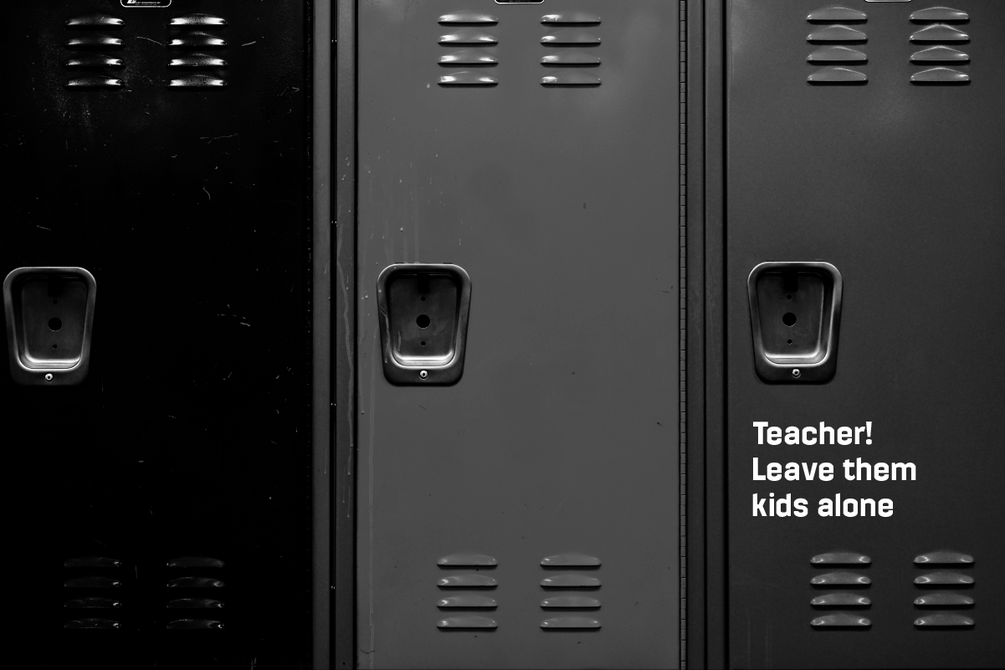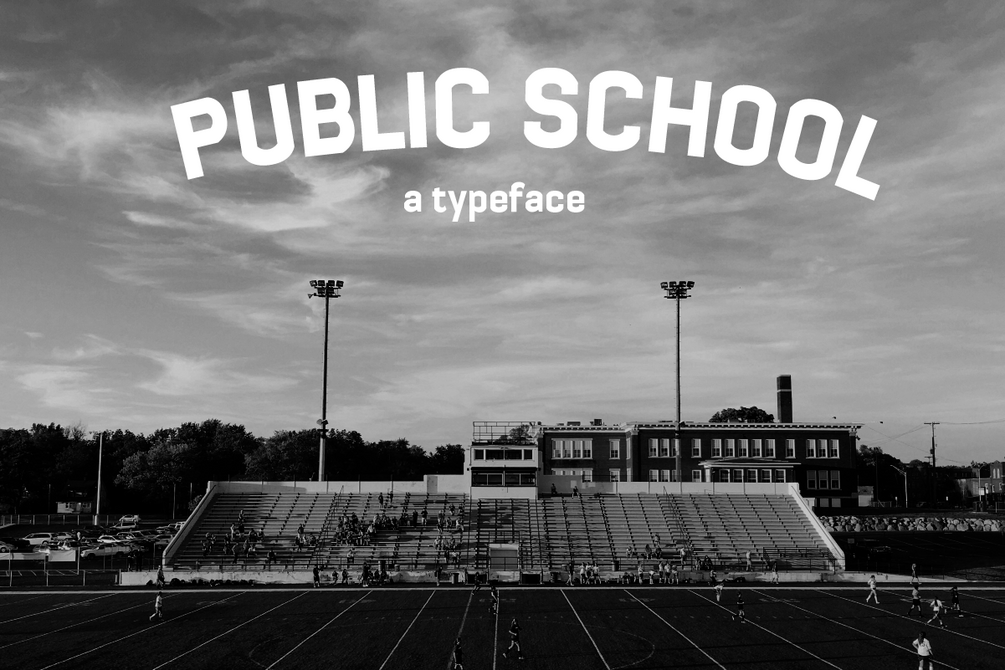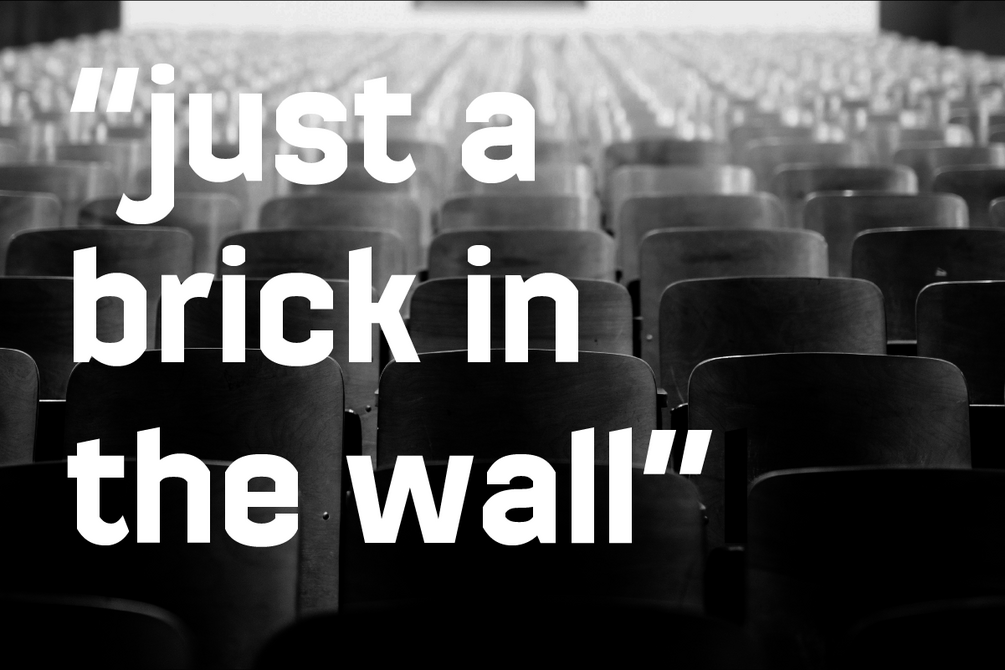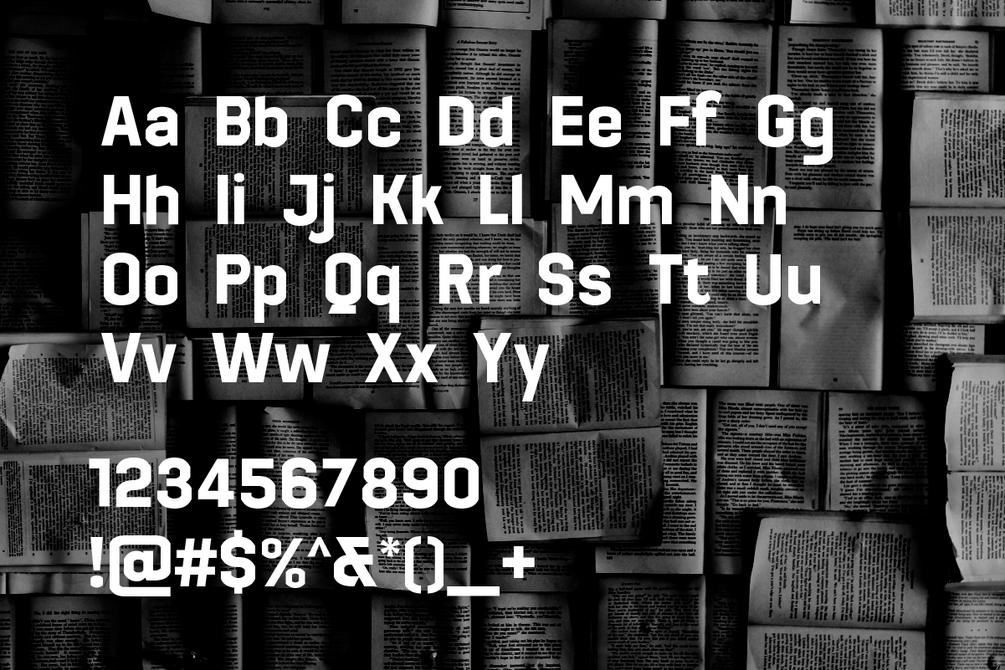
Public School Typeface
Public School is a revival typeface inspired by street typography in New York City. Its original design once adorned the entrance of a public school, showcasing an intriguing contrast between straight and rounded shapes. As a bold display font, Public School is perfect for big ideas and strong statements, blending urban grit with refined forms to make your message stand out.